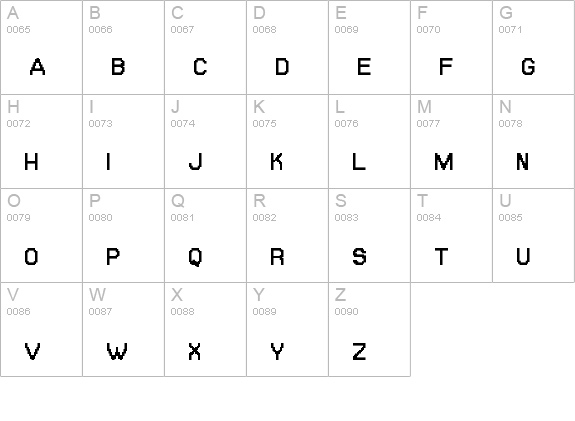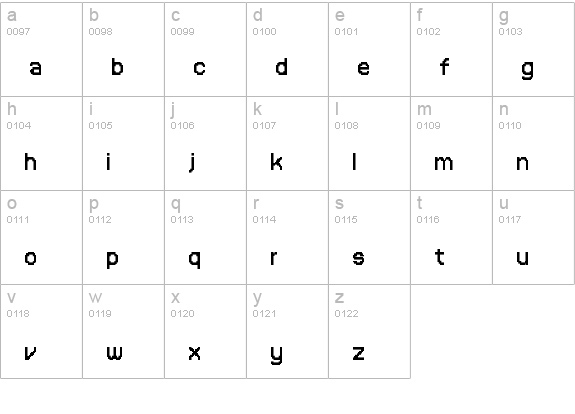
5 Text Uppercase Regular Font Details
5 Text Uppercase Regular is the standard, neutral variant in the 5 typeface family \xE2\x80\x94 well suited to general body text, paragraphs, and standard typographic work.
The 5 Text Uppercase Regular font is a versatile and stylish typeface that is perfect for a variety of design projects. With its clean lines and bold appearance, this font is sure to make a statement. Whether you are creating a logo, designing a website, or working on a print project, this font will add a touch of sophistication and professionalism. One of the best things about the 5 Text Uppercase Regular font is that it is available for free. That's right, you can download this amazing font for absolutely no cost at FontsMarket.com. With just a few clicks, you can have this font ready to use in your next project. The 5 Text Uppercase Regular font is not only visually appealing, but it is also incredibly easy to read. The uppercase letters are clear and distinct, making them perfect for headlines and titles. Additionally, the font's clean and modern design ensures that it will look great in both digital and print formats. Whether you are a professional designer or just starting out, the 5 Text Uppercase Regular font is a must-have in your font library. Its versatility and timeless appeal make it suitable for a wide range of projects. And the fact that it is freely available to download at FontsMarket.com makes it even more appealing. So why wait? Head over to FontsMarket.com and get your hands on the 5 Text Uppercase Regular font today. Enhance your designs and take them to the next level with this amazing font. Don't miss out on the opportunity to download this font for free and elevate your design game.